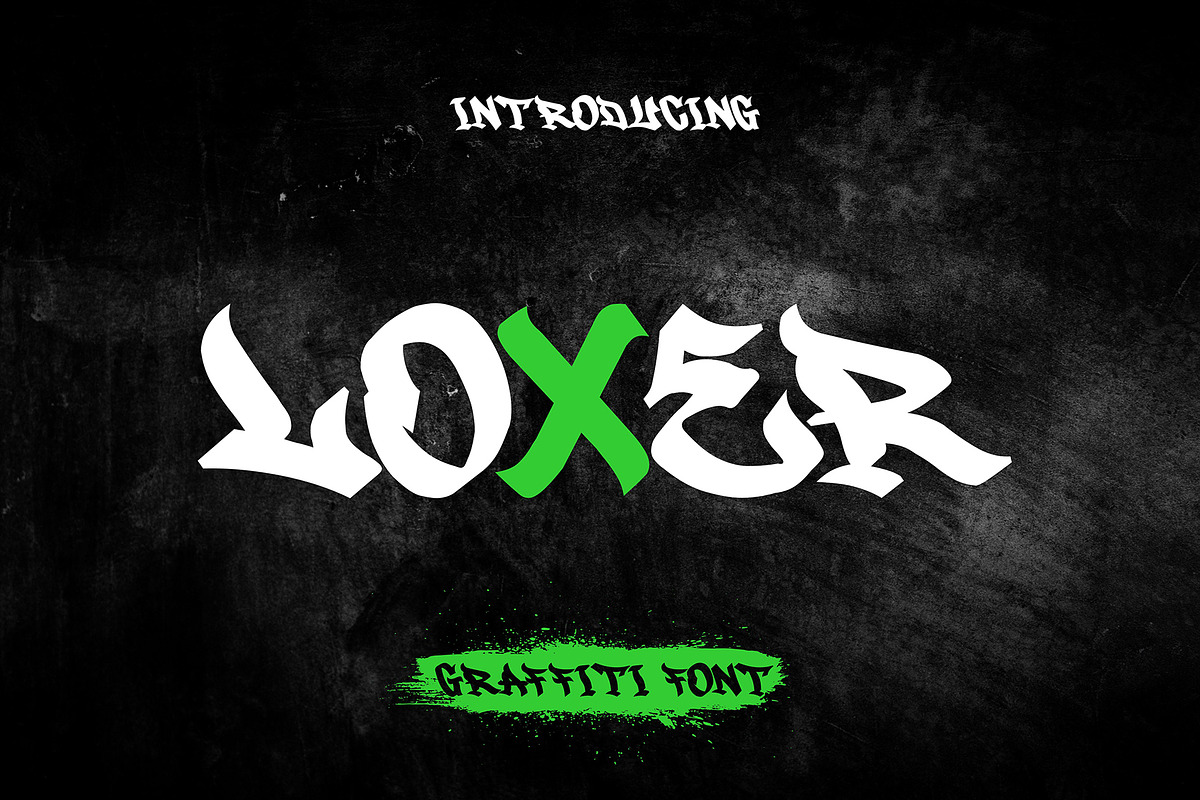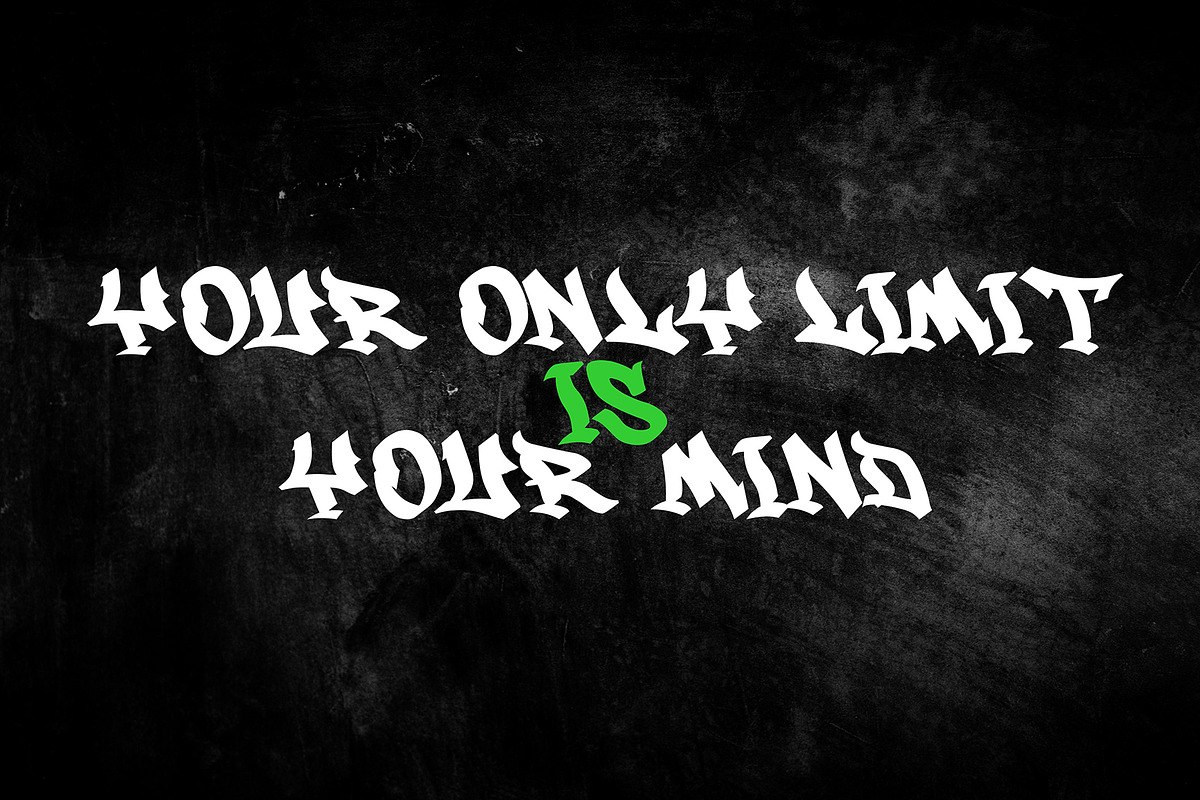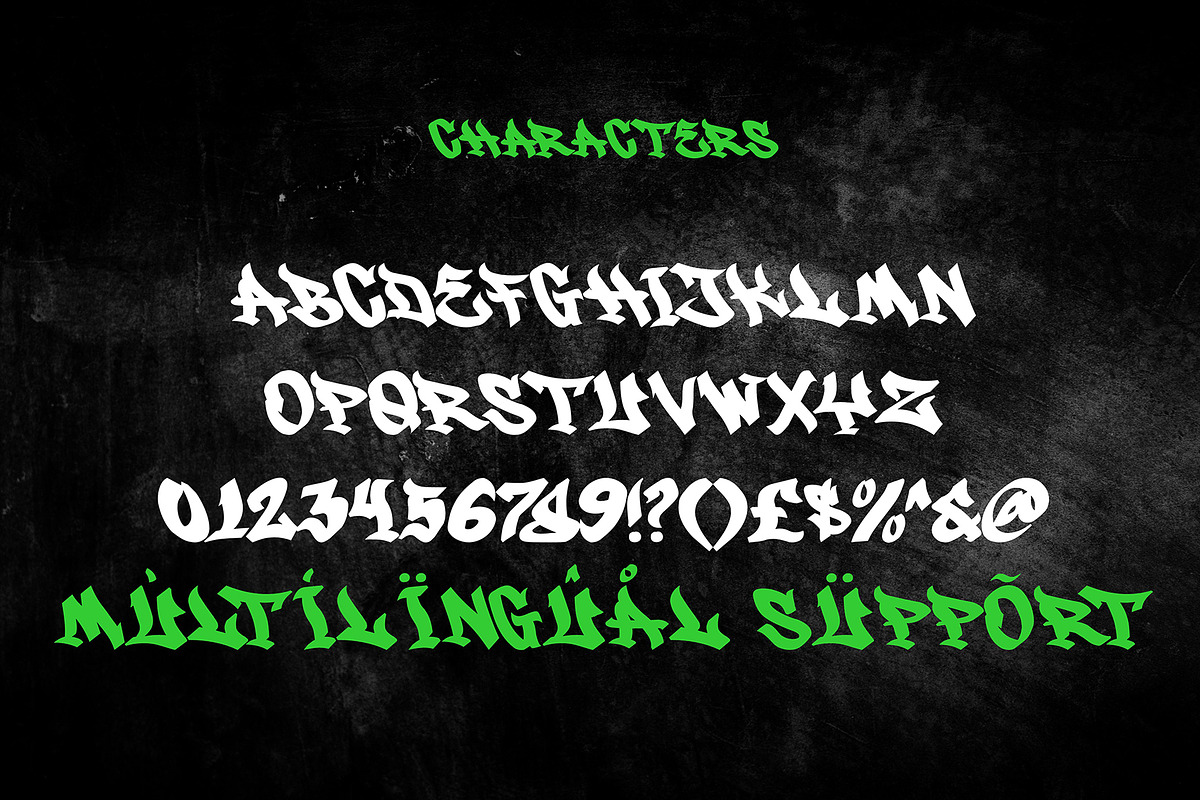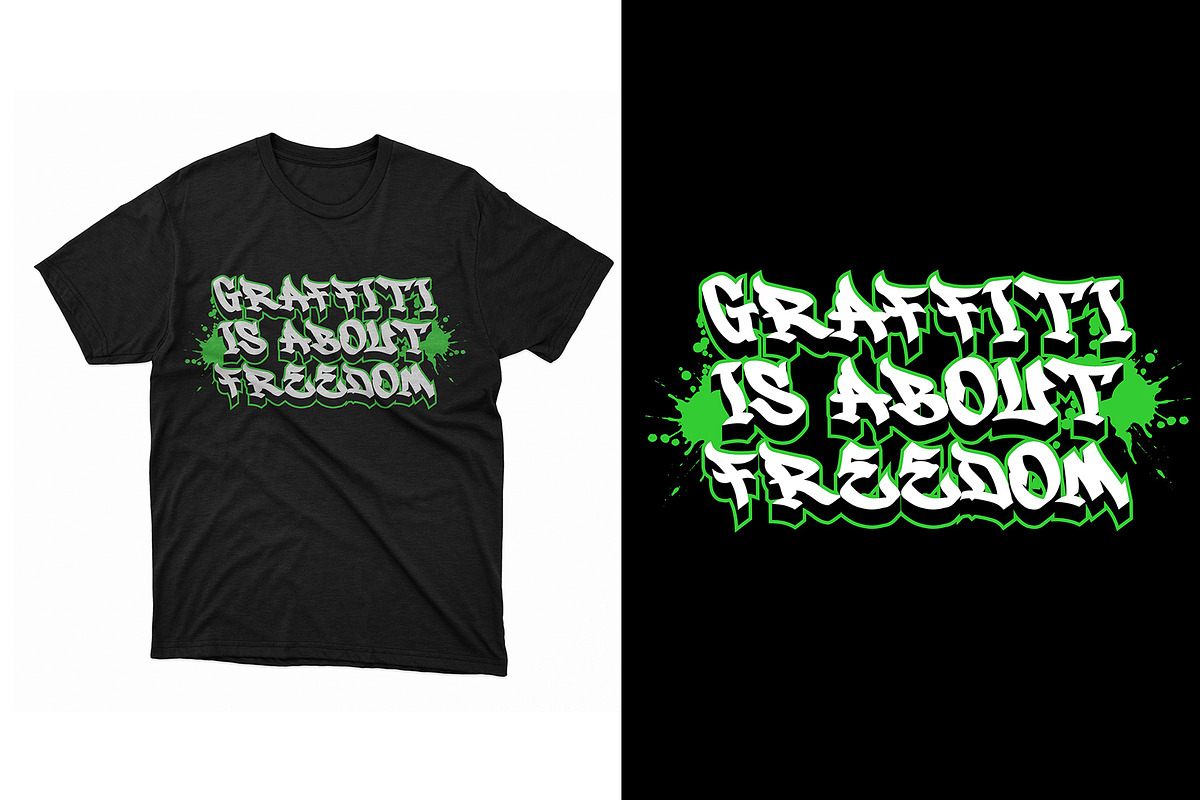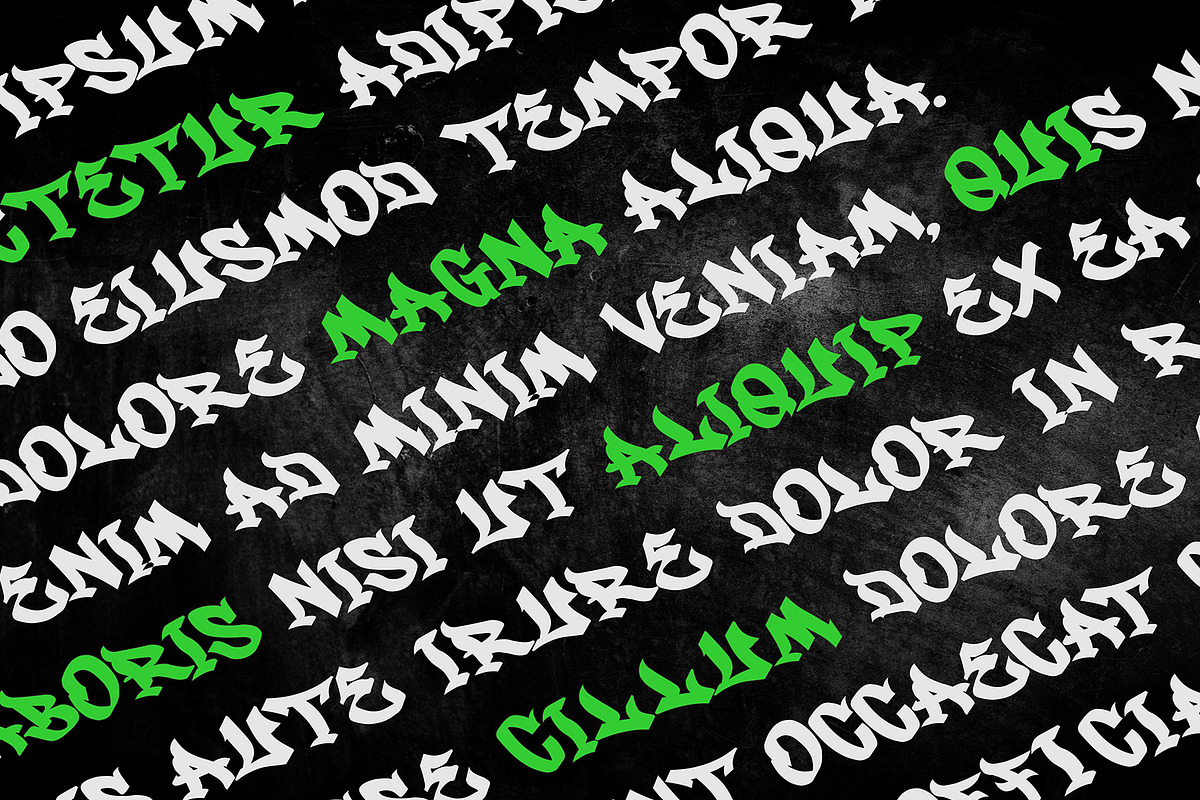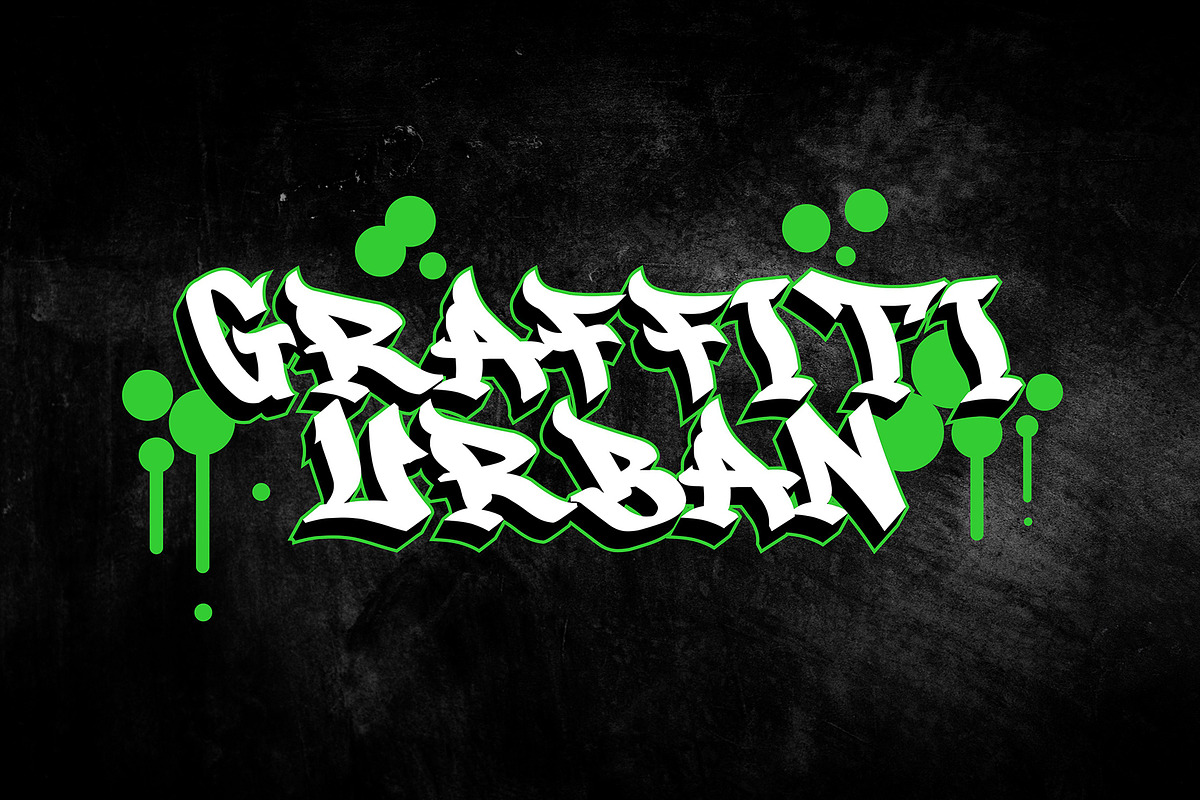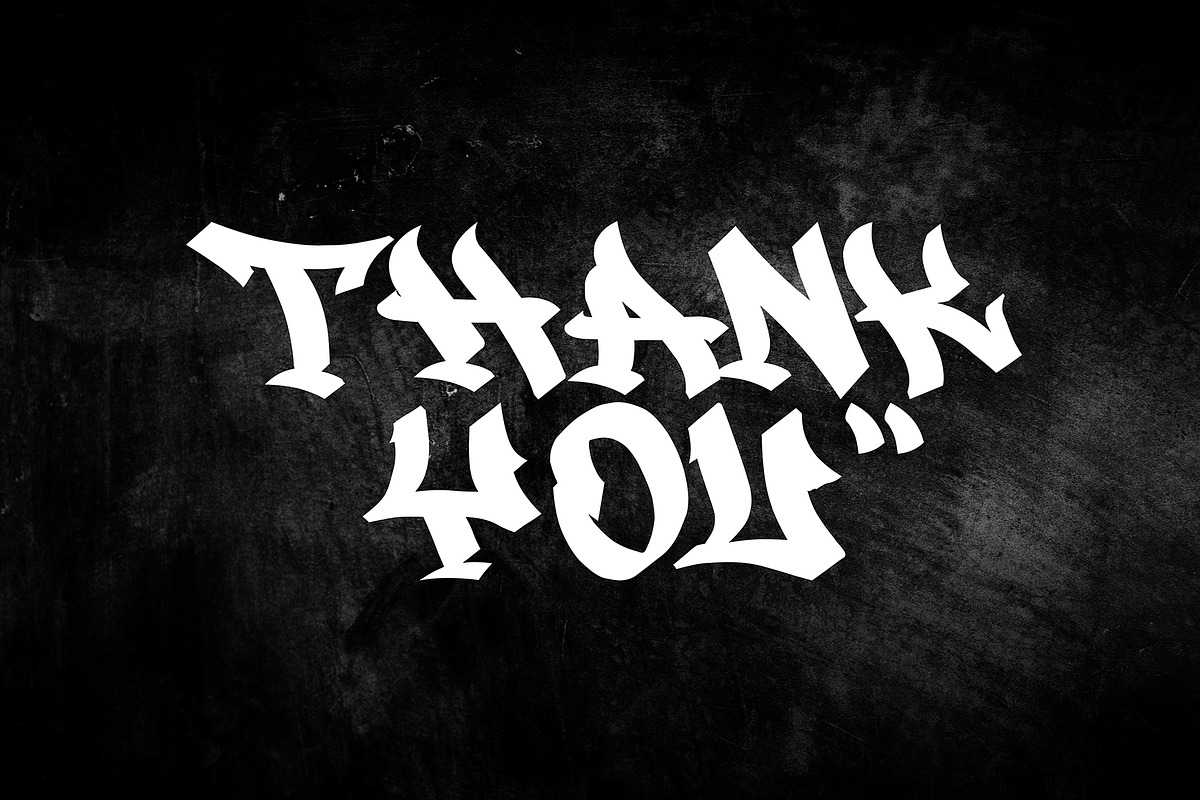
Loxer - Awesome Monoline Graffiti
"Loxer" is a monoline font with a graffiti theme. It is perfect for a wide range of urban or street-themed design projects, such as streetwear design, logo design, car/motosport decals, skateboard decals, and other similar designs. With its edgy and bold appearance, "Loxer" brings a sense of energy and attitude to your designs. The font's monoline style and slight shadow effect create a 3D effect that adds visual interest and makes your designs stand out. Whether you're looking to create a strong and impactful design or add a touch of urban style to your projects, "Loxer" is the font for you.